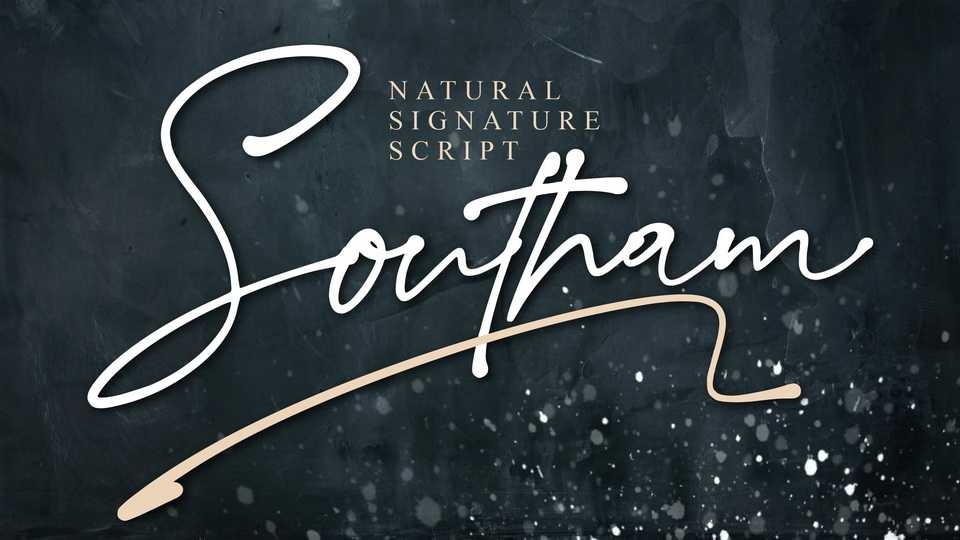
Download Southam font a signature typeface with an ink style and natural flow. This handwritten font is perfect for weddings, watermarks, branding, such as business cards, letters, product logos, etc.